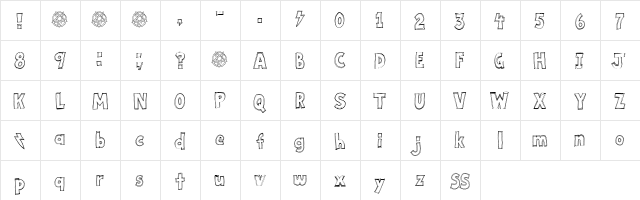
Key Tab Metal Outlined
| Style | Outlined |
| Foundry | Michael Tension |
| Designer | Michael Tension |
Design Context for Key Tab Metal Typeface
Key Tab Metal is built around its visual character rather than neutral utility — its distinctive forms are designed to make an impression at display sizes.
Font Pairing: Pair with a clean neutral sans-serif for body copy to let Key Tab Metal's character lead without overwhelming the composition.
Pro Tip: Use Key Tab Metal exclusively at display sizes — it was designed to be seen, not read at length. Let a neutral companion handle body copy.